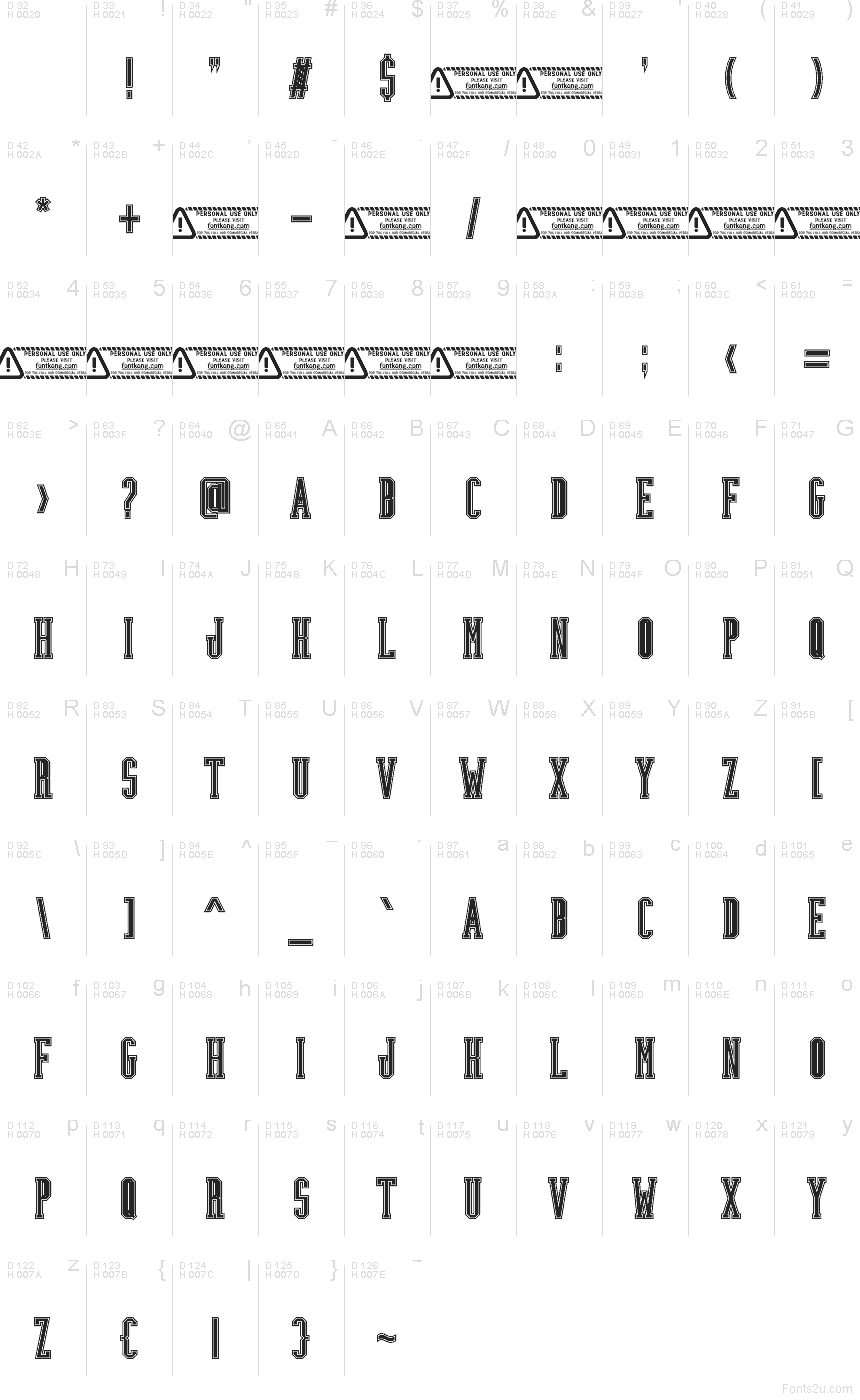
Jersey
Jersey font by Kong Font is a free old-school display typeface that feels straight out of a packed stadium. Bold block letters, crisp inner lines, and strong outlines give it that stitched-jersey vibe, like numbers pressed onto a fresh uniform. It’s punchy, legible, and built to grab attention from a distance while still looking polished up close.
Using Jersey font, your designs instantly channel sports energy—think team branding, varsity posters, fan merch, tickets, banners, and YouTube thumbnails. This free font works beautifully for bold headlines and wordmarks; keep it large so the layered outline effect really hits. Pair it with a simple sans serif for small text to let Jersey handle the big, loud moments.